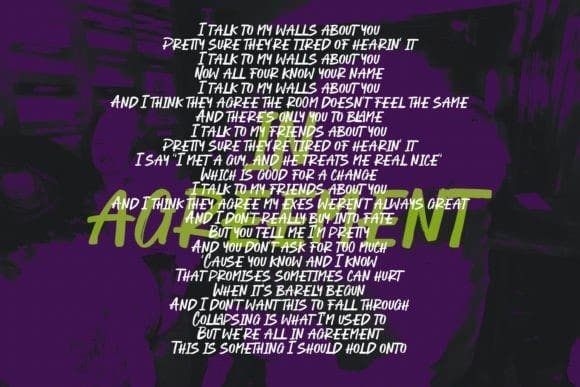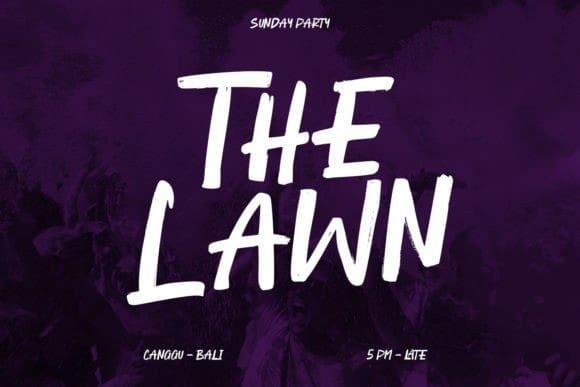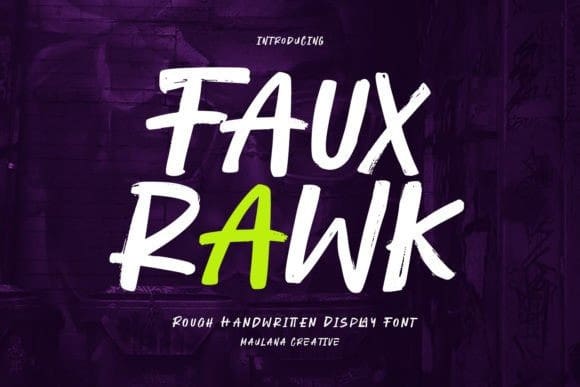
Fauxrawk Brush Font
Fauxrawk Brush Font, is a modern handwritten display font. With rough brush stroke, fun character with a bit of ligatures and alternates. This font is good for logo design, social media, movie titles, books titles etc.